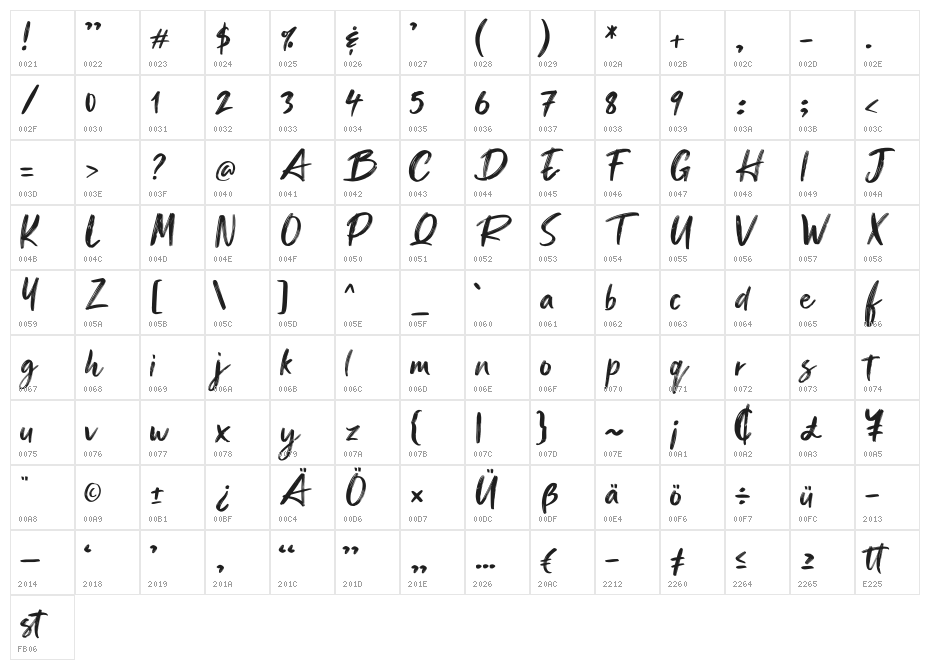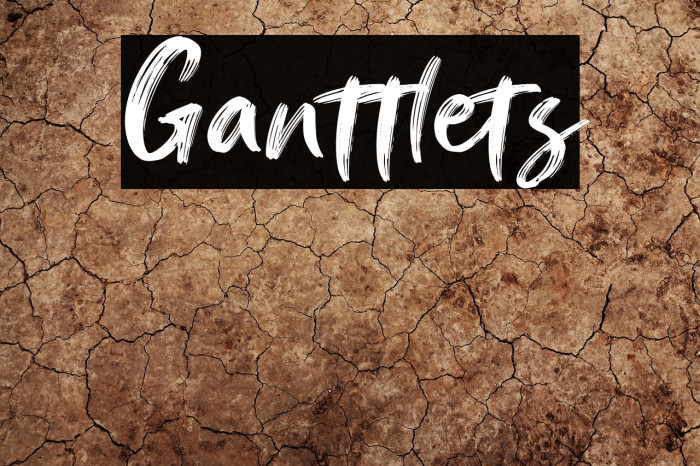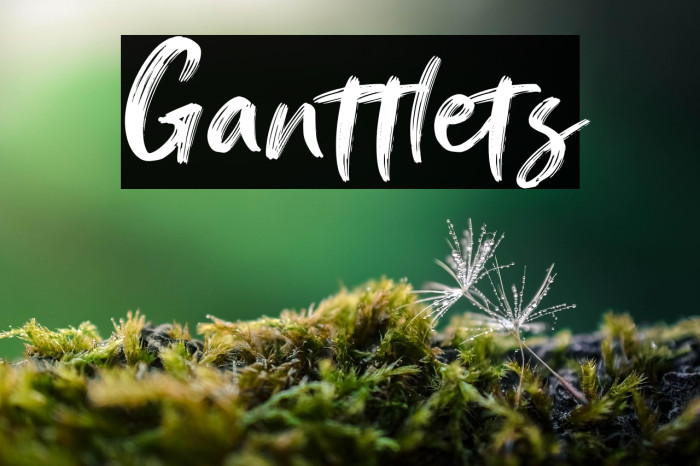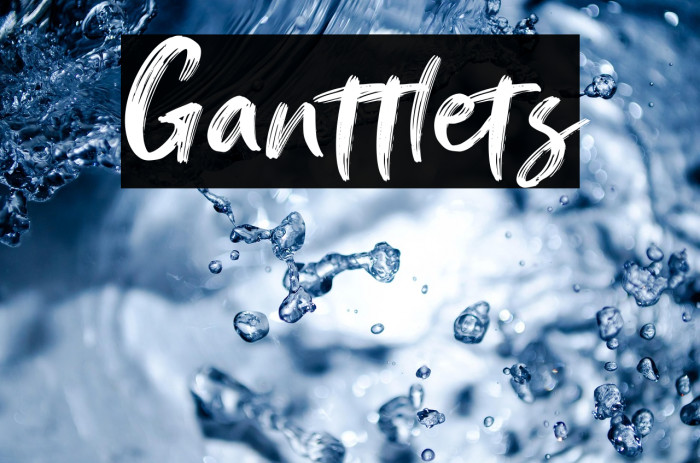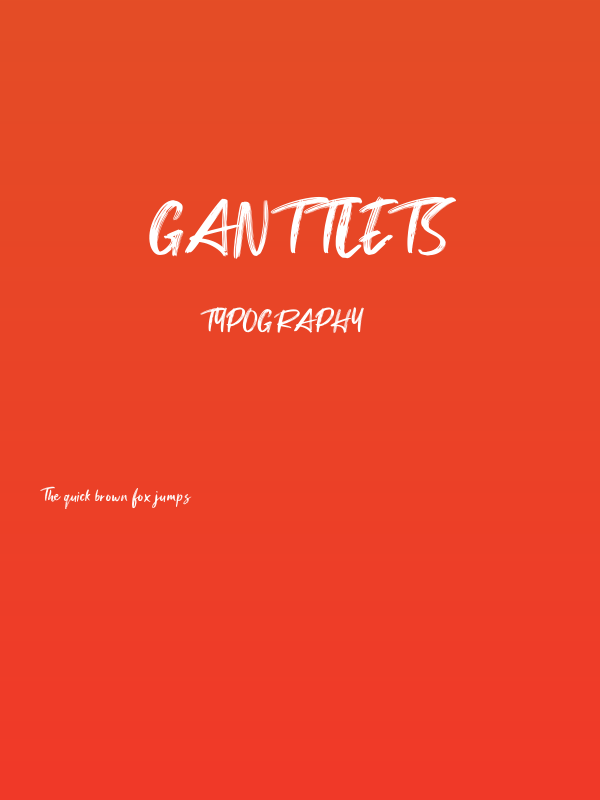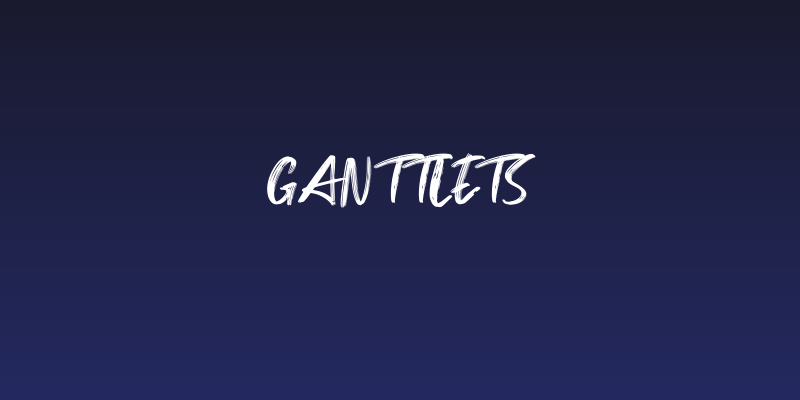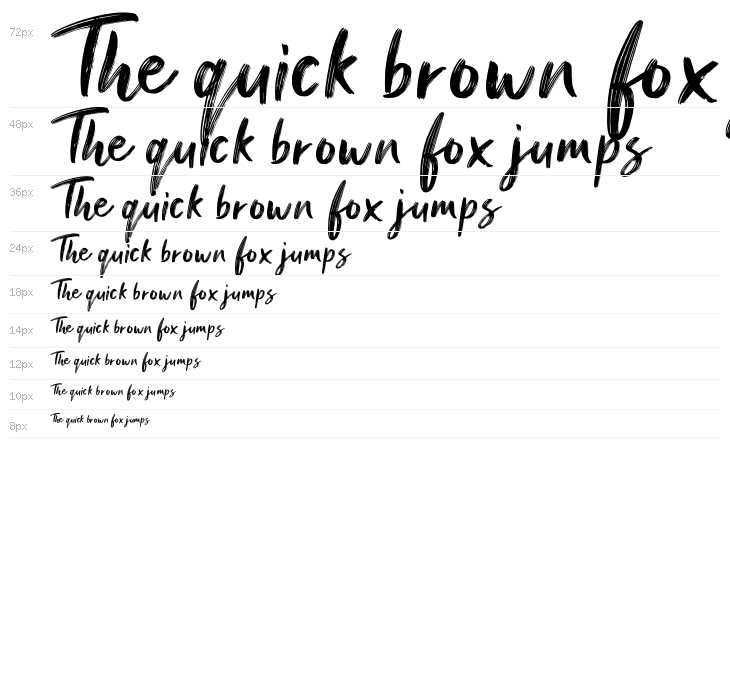
Ganttlets Font
Ganttlets Description
This font exudes a dynamic and energetic feel, characterized by its bold, brush-like strokes that convey a sense of movement and fluidity. The uppercase letters are robust and commanding, while the lowercase letters maintain a consistent flow, enhancing readability. Numbers and special characters are crafted with the same artistic flair, ensuring a cohesive look across all text elements. The font's unique style is reminiscent of hand-painted signage, making it ideal for projects that require a personal touch. Its artistic nature is perfect for creative designs, adding a distinctive edge to any visual presentation.
| Overall Style | Artistic, Dynamic |
| Use Case | Headlines, Posters, Branding |
| Proposed Projects | Ideal for branding, posters, artistic projects, and any design requiring a bold, creative touch. |